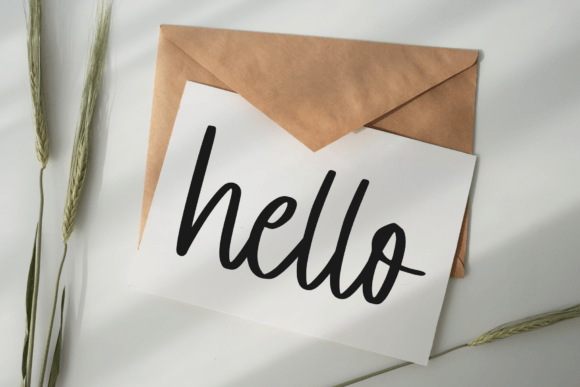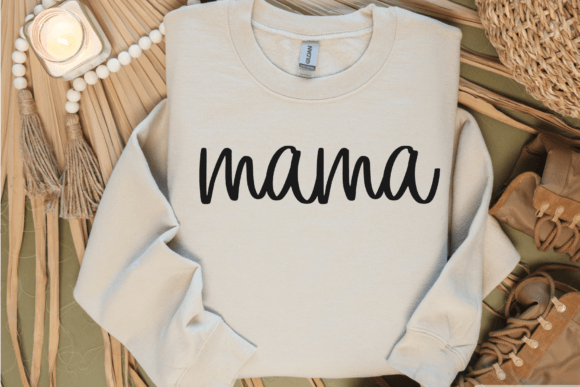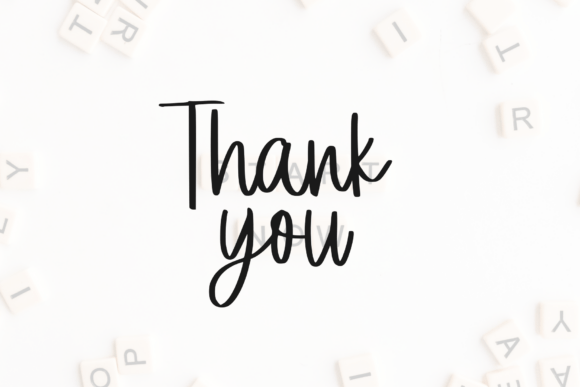
The Charm of Alphabet Font: A Designer’s New Best Friend
I’ll never forget the time I was working on a branding project for a small bakery, and I just couldn’t find the right font to capture their warm and inviting personality. The client wanted something that felt personal, yet sophisticated. I spent hours scouring the internet, trying out font after font, until I stumbled upon Alphabet Font. It was like a breath of fresh air – simple, elegant, and full of character. In this article, I’ll share my love for Alphabet Font, its features, and how to make the most of it in your designs.
- ✨ Simple yet sophisticated: Alphabet Font has an understated beauty that makes it perfect for a wide range of creative projects.
- ✅ Highly versatile: Its casual aesthetic makes it suitable for everything from branding and packaging to invitations and social media graphics.
- 💫 Easy to read: The font’s clear and clean lines ensure that your text is always legible, even at small sizes.
While Alphabet Font is an excellent choice for many projects, it’s not without its limitations. For example:
- 🤔 Limited bold options: Alphabet Font doesn’t have a super bold weight, which might make it less suitable for headlines that need to grab attention from a distance.
- ⚠️ Not ideal for body text: While the font is easy to read, it’s not designed for long-form content. For body text, you might want to opt for a font with more traditional typographic features.
The Story Behind Alphabet Font
Alphabet Font was designed with the intention of creating a simple, yet elegant handwritten font that could be used for a wide range of creative projects. The designer aimed to craft a font that felt personal, yet sophisticated – perfect for designers, crafters, and creative hobbyists who want to add a touch of warmth to their work.
| Font Name | Alphabet Font |
| Author | alanstudio99 |
Q: Is Alphabet Font suitable for body text?
A: While Alphabet Font is easy to read, it’s not designed for long-form content. For body text, you might want to opt for a font with more traditional typographic features.
Q: Does Alphabet Font have any special features?
A: Yes, Alphabet Font has a range of OpenType features, including stylistic alternates and glyphs. Experiment with these features to add visual interest to your typography.